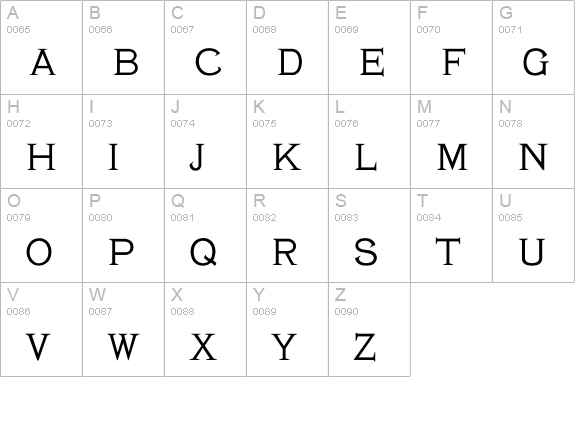
Verena font is a beautifully crafted typeface that exudes elegance and sophistication. Its smooth curves and delicate strokes make it a perfect choice for any design project that requires a touch of class. Whether you're creating a logo, designing a wedding invitation, or working on a branding project, Verena font will add a sense of style and refinement. What makes Verena font even more appealing is that it is completely free to download. You can easily access this stunning font at FontsMarket.com, where it is available for anyone to enjoy. Whether you're a professional designer or someone who simply appreciates the beauty of typography, Verena font is a must-have in your collection. Not only does Verena font offer a wide range of characters and ligatures, but it also comes in various weights and styles, giving you the freedom to experiment and create unique designs. Its versatility allows it to be used in both digital and print applications, ensuring that your projects will always look their best. With its timeless appeal and effortless grace, Verena font is sure to elevate any design. So, don't miss out on the opportunity to enhance your creative projects with this stunning typeface. Download Verena font for free today at FontsMarket.com and unleash your creativity.